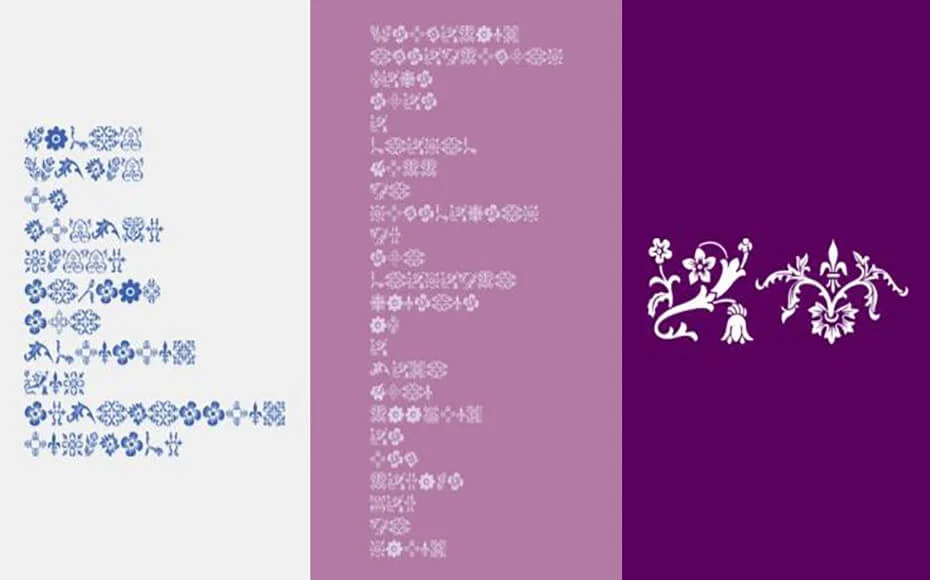
Meet Floralia Font – a typeface that comprises unique flourishes, and flowers making it perfect for adding charm to your greeting cards, invitations, and more.
Manfred Klein Fonteria a Font designer took the charge of making it for the first time on 30 September 2005.
The Floralia font is essentially a dingbats font family as it contains symbols and shapes. And he represented natural flowers.
This font family gained a lot of popularity after its release. Take a look at the letter map images we have attached to this post.
Before moving on, let’s take a look at the appearance of this font to see how it will appear when you apply it to your graphic design.
With so many features, this font is perfect for albums, brochure designs, book covers, posters, banners, greeting cards, logos, internet shops presentation, phrases, gift shops, and much more.
Floralia font family comes in only one style and it has many languages including Dutch,  French, German, and so on.